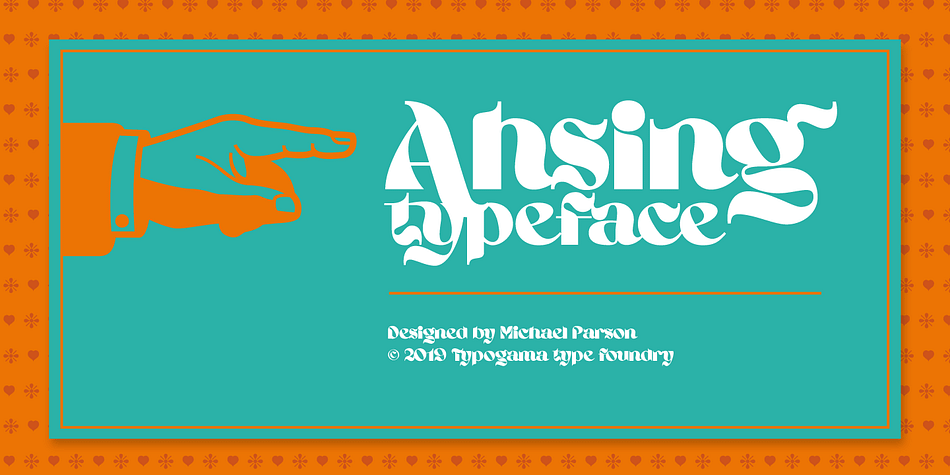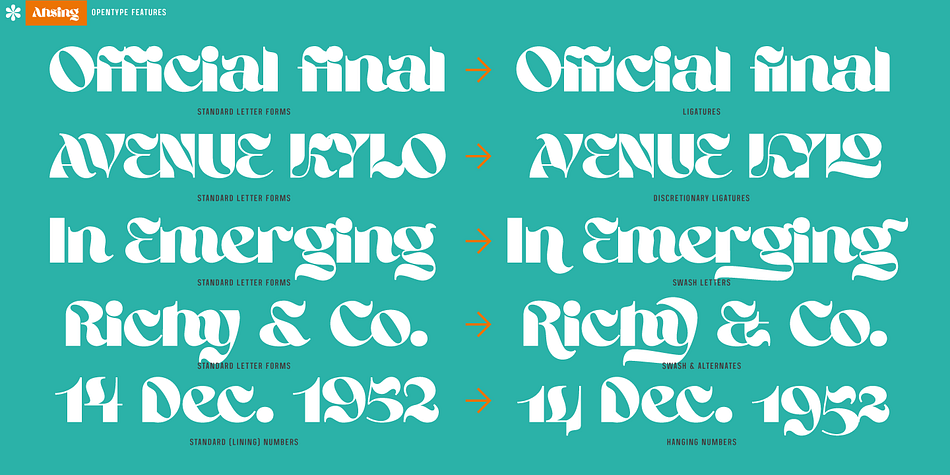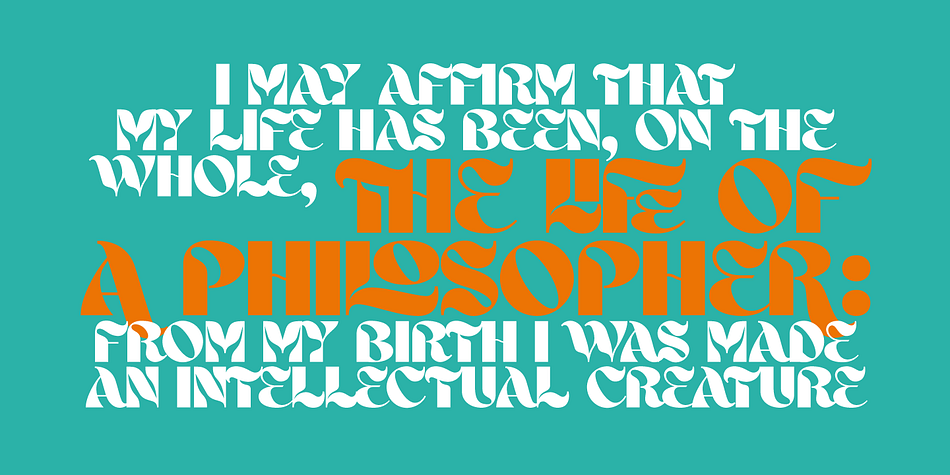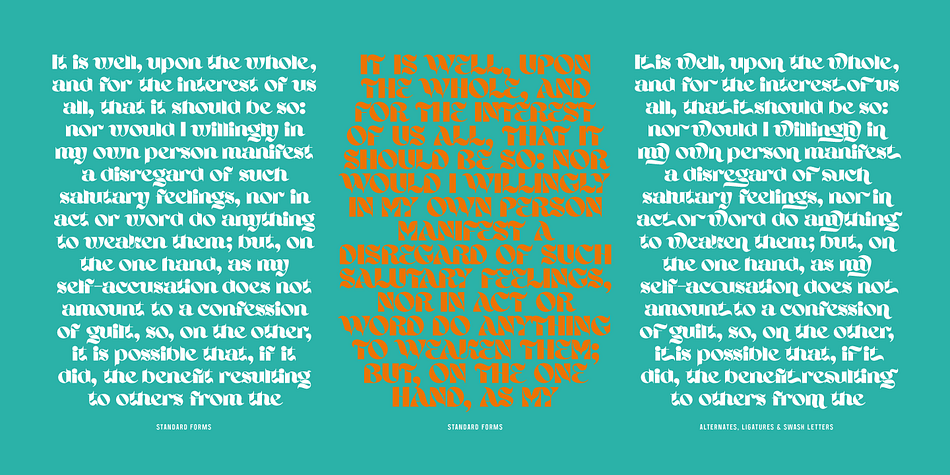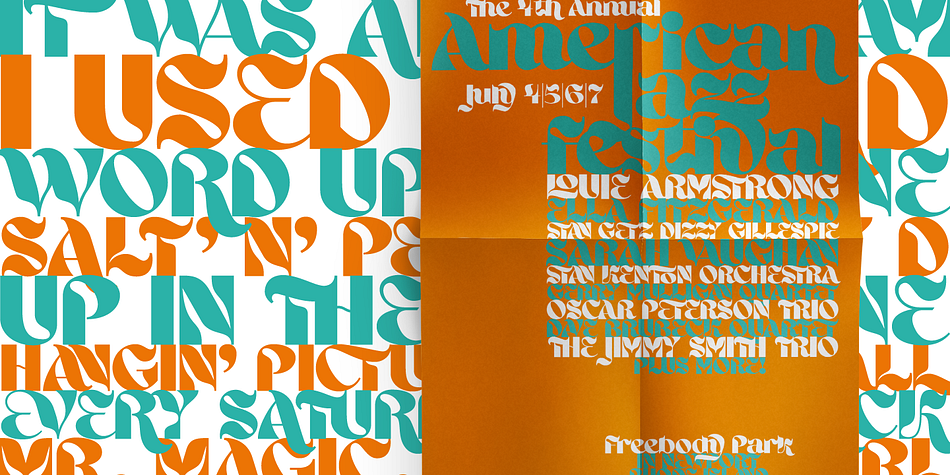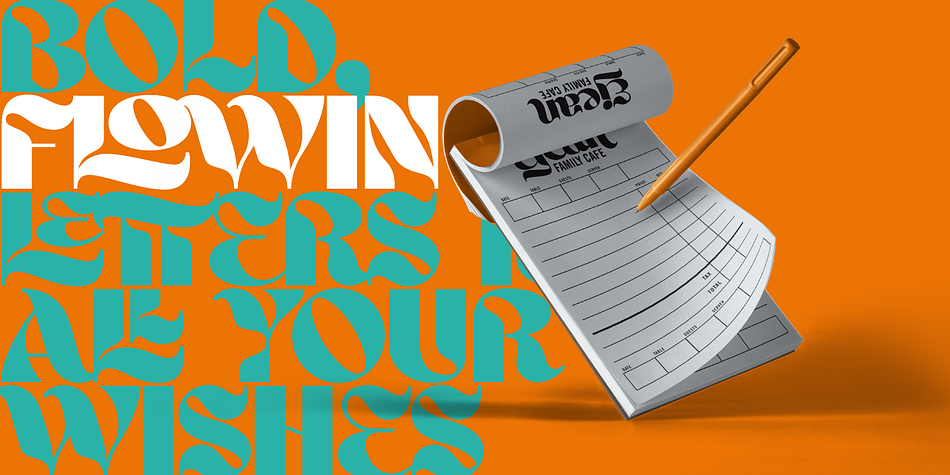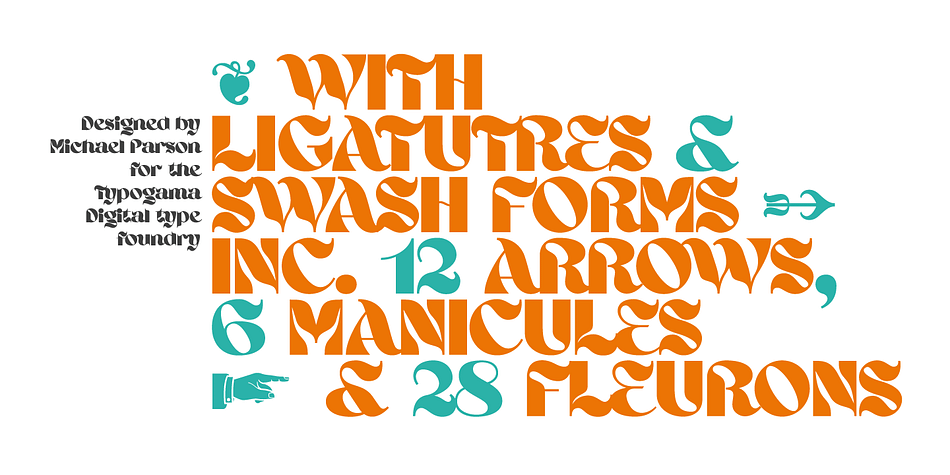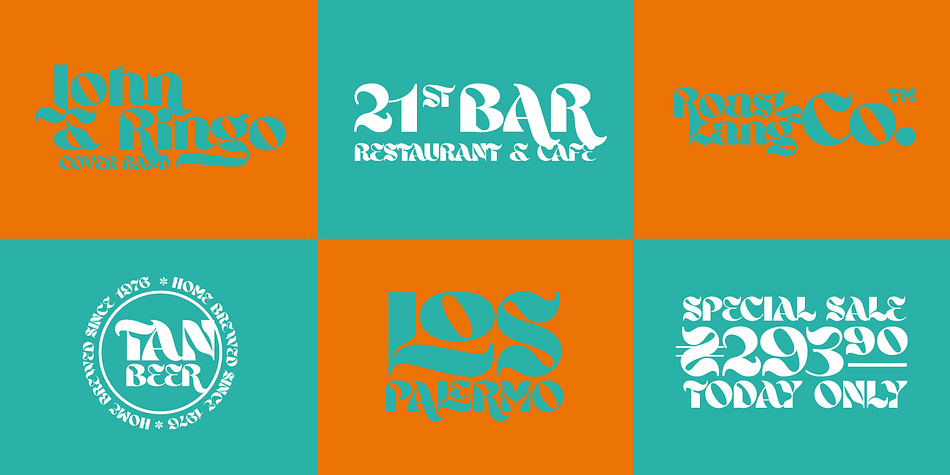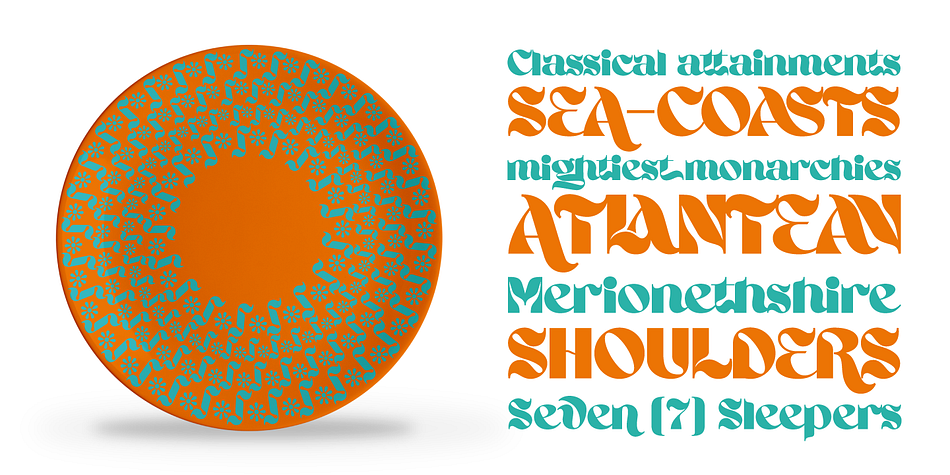
Designed by Michael Parson, Ahsing is a display font published by Typogama.
Inspired by a wide range of sources and styles, Ahsing is a single weight typeface that aims to explore new design solutions. With a bold form a strong contrast and pronounced diagonal axis, this design hints both at past typeface styles while being unique and original in it’s appearance.
Thanks a large range of Opentype features and an expanded character set, this single font provides a versatile and distinctive solution for setting titles or any large text that need to catch your viewers attention.